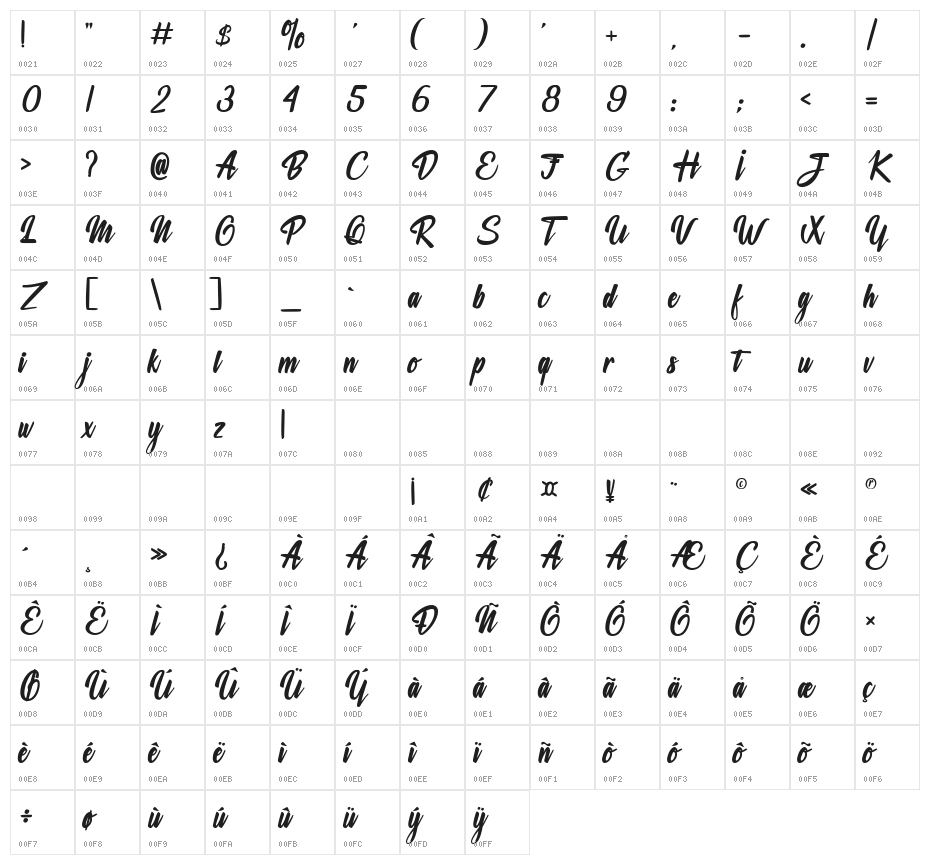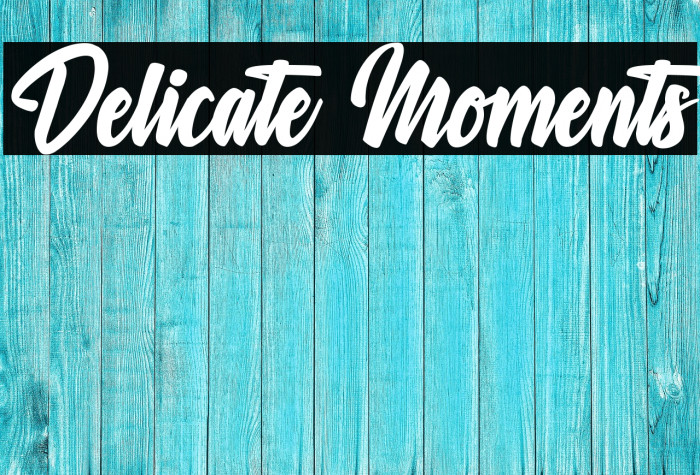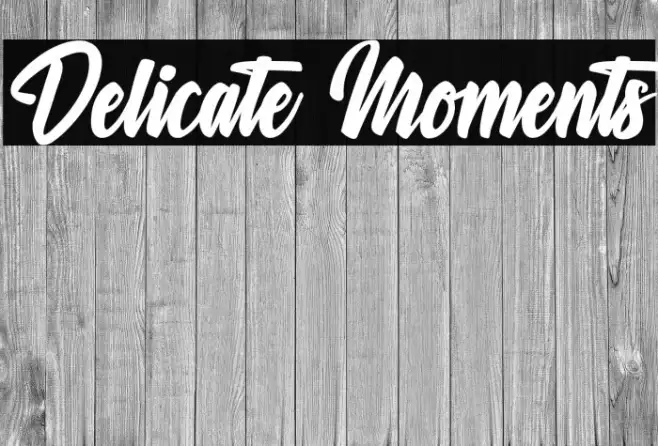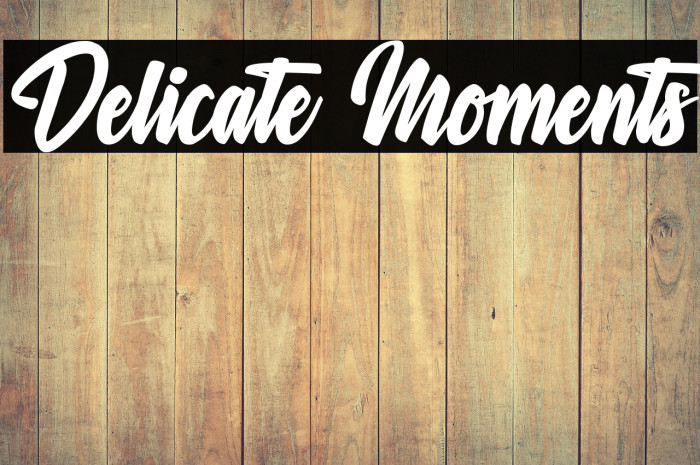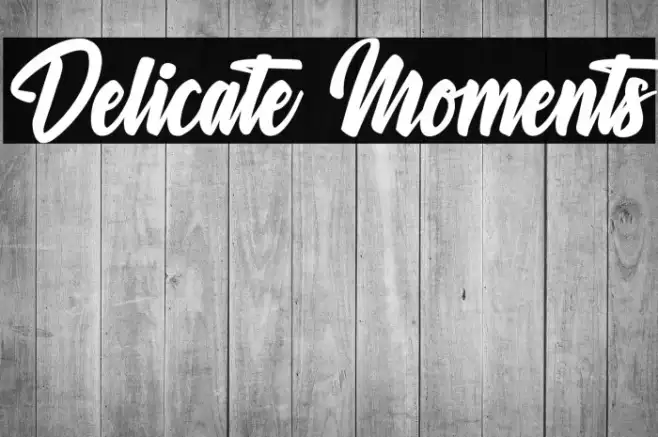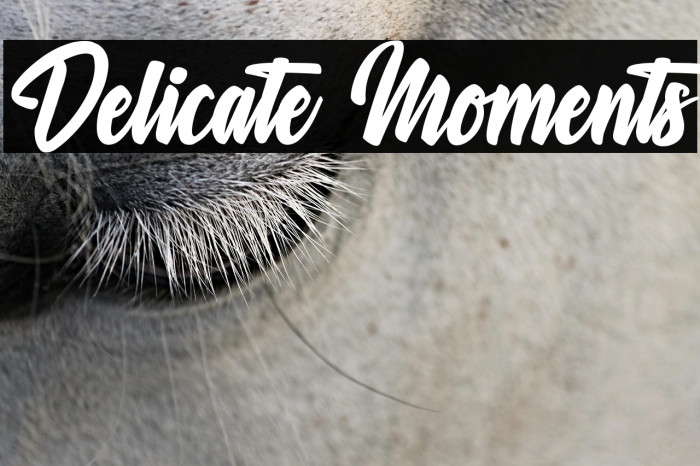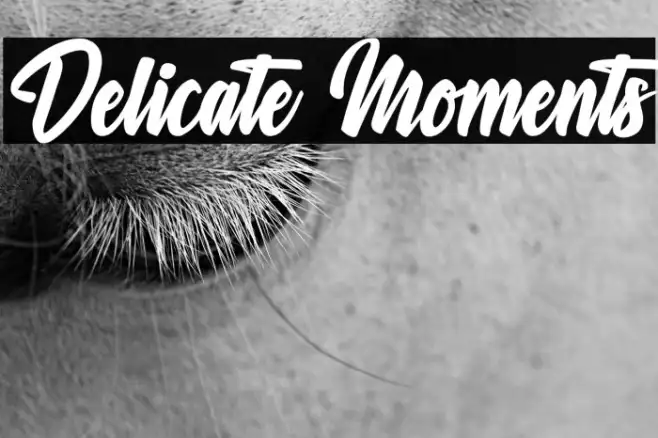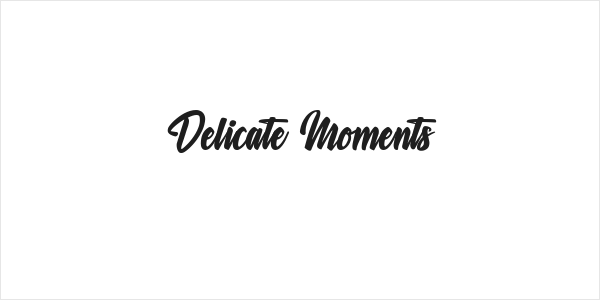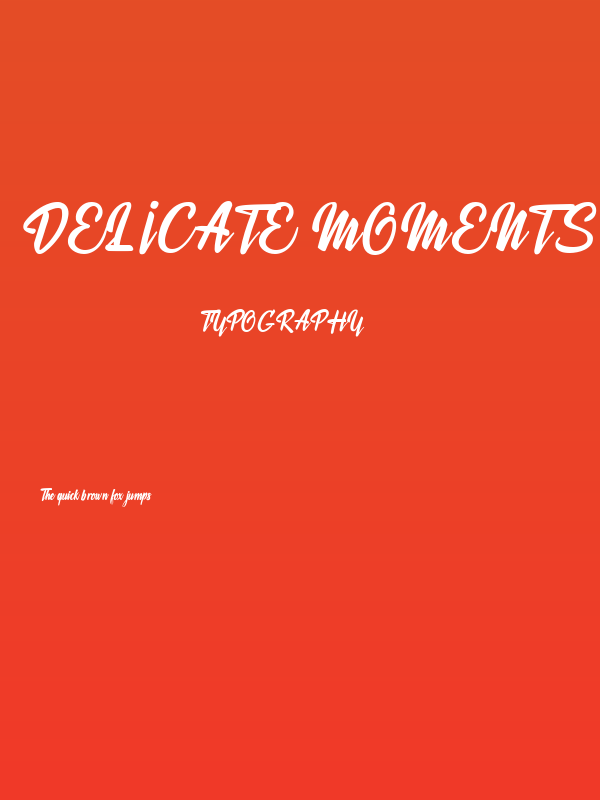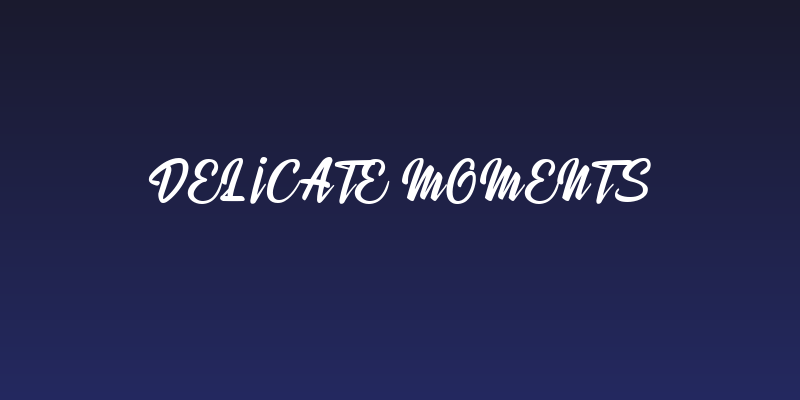
Delicate Moments Font
Delicate Moments Description
This font exudes a sense of elegance and fluidity, characterized by its cursive script style. The letters are interconnected, creating a seamless flow that mimics natural handwriting. The strokes are bold yet graceful, with a consistent thickness that adds to its legibility. The uppercase letters are slightly more ornate, with flourishes that enhance their decorative appeal. The lowercase letters maintain a smooth and cohesive appearance, making them ideal for conveying a personal touch. The numerals and special characters are designed to match the overall aesthetic, ensuring a harmonious look across all text elements.